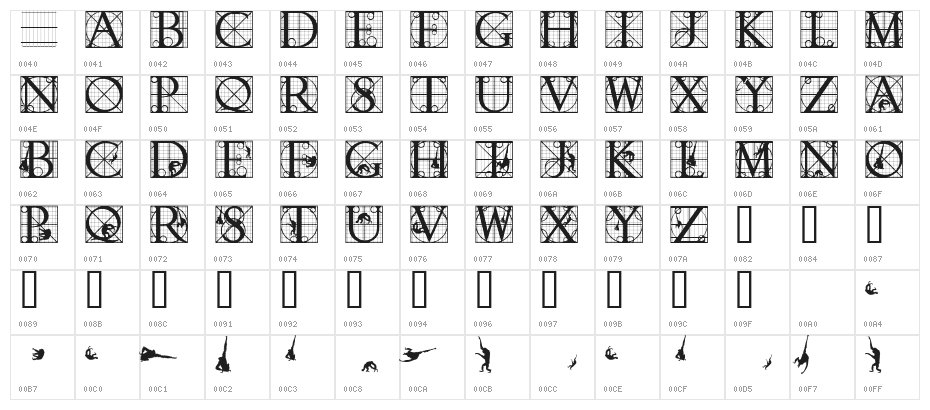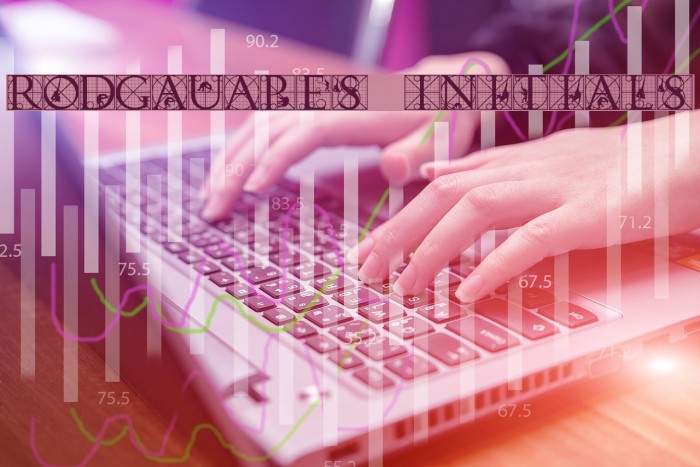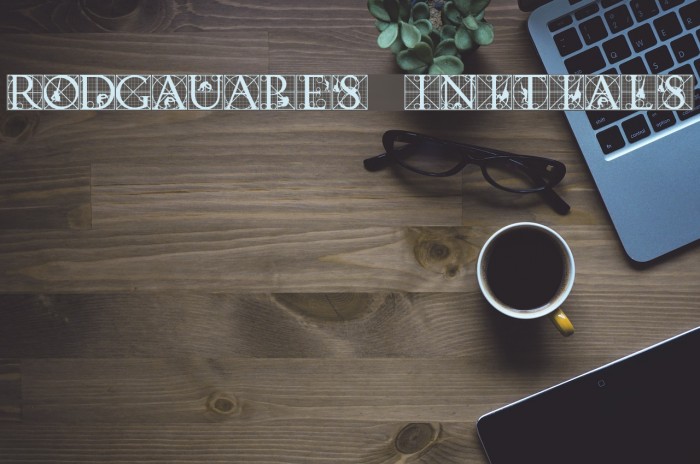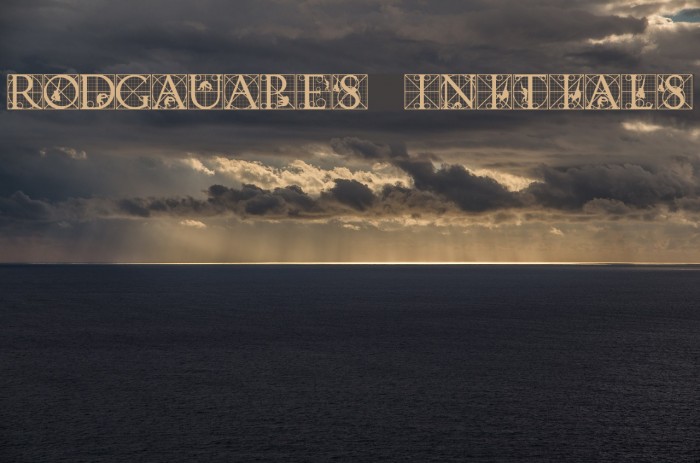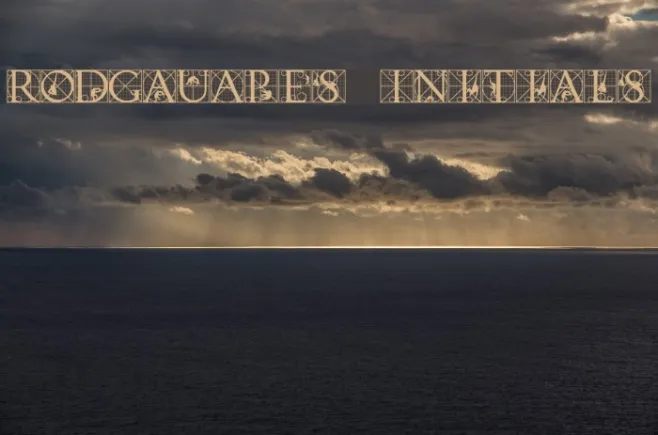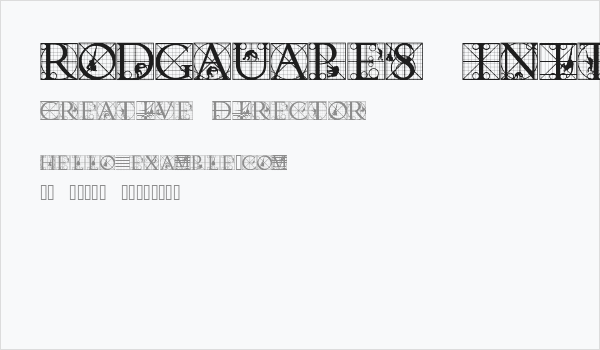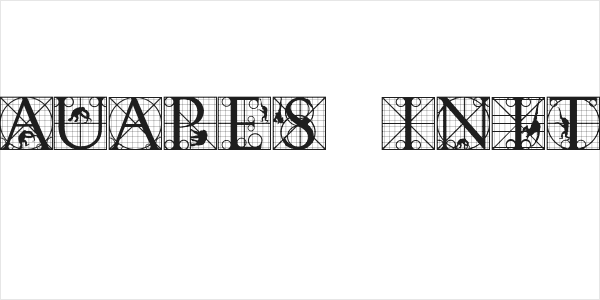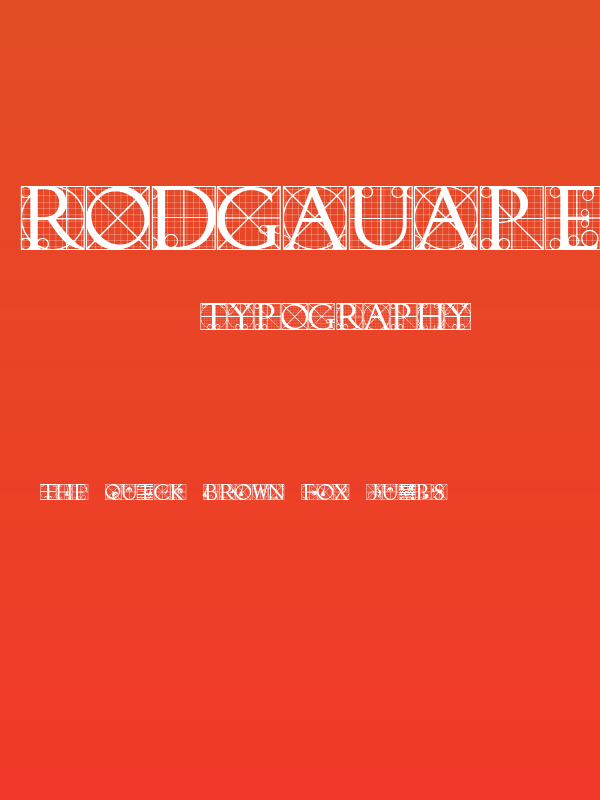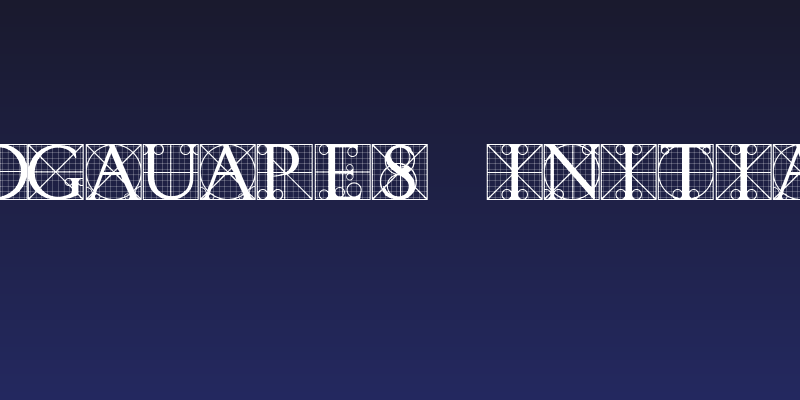
RodGauApes Initials Font
RodGauApes Initials Description
This font features a highly decorative and intricate design, characterized by geometric patterns and ornamental details within each letter. The uppercase letters are enclosed in a grid-like structure, with each character showcasing unique circular and linear embellishments that create a sense of complexity and artistry. The font lacks lowercase letters, numbers, and special characters, focusing solely on uppercase initials. Its elaborate style suggests a blend of modern and classic influences, making it suitable for projects that require a touch of elegance and sophistication.
Use CaseLogos, Headlines, Decorative elements
Proposed ProjectsIdeal for use in luxury branding, wedding invitations, high-end product packaging, and artistic posters.